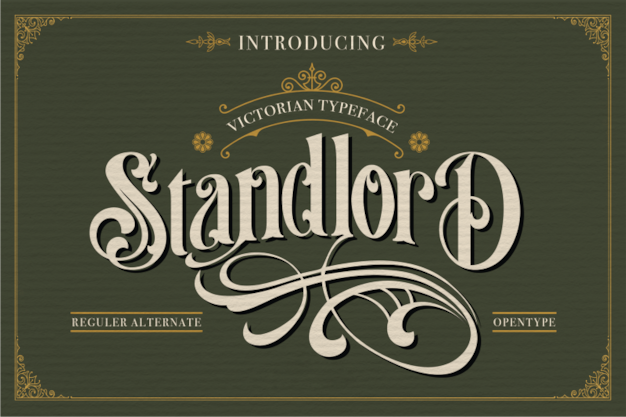
Standlord Font
Standlord is a vintage font that channels a historical, antique aesthetic. Its elegant curves and bold strokes evoke the charm of classic storybook titles and old signage, offering a timeless look. Ideal for projects that require a nod to the past, Standlord blends vintage style with modern functionality, perfect for capturing the essence of historical design.